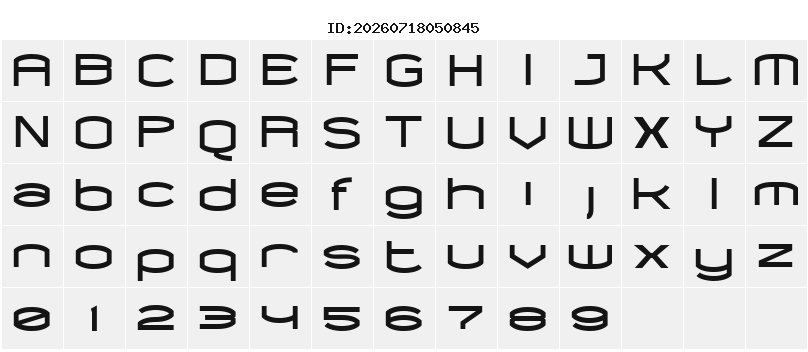
Chord Preview
• Font Name: Chord
• Font Style: Black
• Font ID: TransType 2 PC;Chord-Black;001.000;06/22/05 20:00:22
• Full Font Name: Chord-Black
• PostScript Name: Chord-Black
• Character Count: 172
About Chord.ttf
Chord.ttf is a modern, elegant sans-serif font designed for ultimate readability and visual harmony. Perfect for branding, headlines, web design, and print materials.